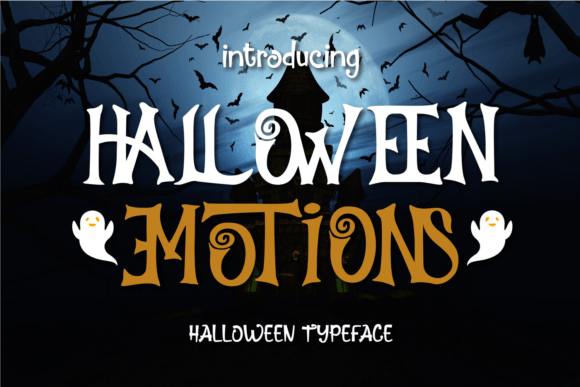
Introducing Halloween Emotions Font, the ultimate vintage and spooky display font that will take your Halloween designs to the next level. Created by 177Studio, this font is specifically designed to capture the essence of the Halloween season and bring a mystical, scream-inducing vibe to your projects.
With its strong character and fantasy-inspired design, Halloween Emotions Font is the perfect choice for creating eye-catching and spine-chilling Halloween posters. Whether you're hosting a haunted house event, designing party invitations, or simply want to give your social media posts a spooky twist, this font will instantly elevate your designs and leave a lasting impression on your audience.
What sets Halloween Emotions Font apart is its unique inspiration derived from the twigs of the Halloween tree. Each letter has been meticulously crafted to reflect the eerie and mysterious atmosphere of the season. As you type out your text, you'll feel the goosebumps rise with every stroke, adding an extra layer of authenticity to your Halloween-themed projects.
But it's not just about the aesthetics. Halloween Emotions Font also offers a wide range of practical applications. Its versatility allows you to use it for various design purposes, including posters, banners, logos, merchandise, and more. Let your creativity run wild as you experiment with different layouts and effects, turning your ideas into captivating visuals that will captivate and engage your target audience.
By adding Halloween Emotions Font to your font library, you're not just investing in a font – you're investing in the power to evoke emotions and create unforgettable experiences. Get ready to amaze your audience and make a bold statement with your Halloween designs. This font will grab their attention, send shivers down their spines, and leave them wanting more.